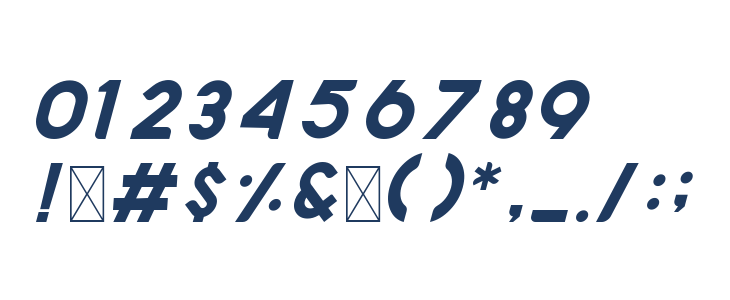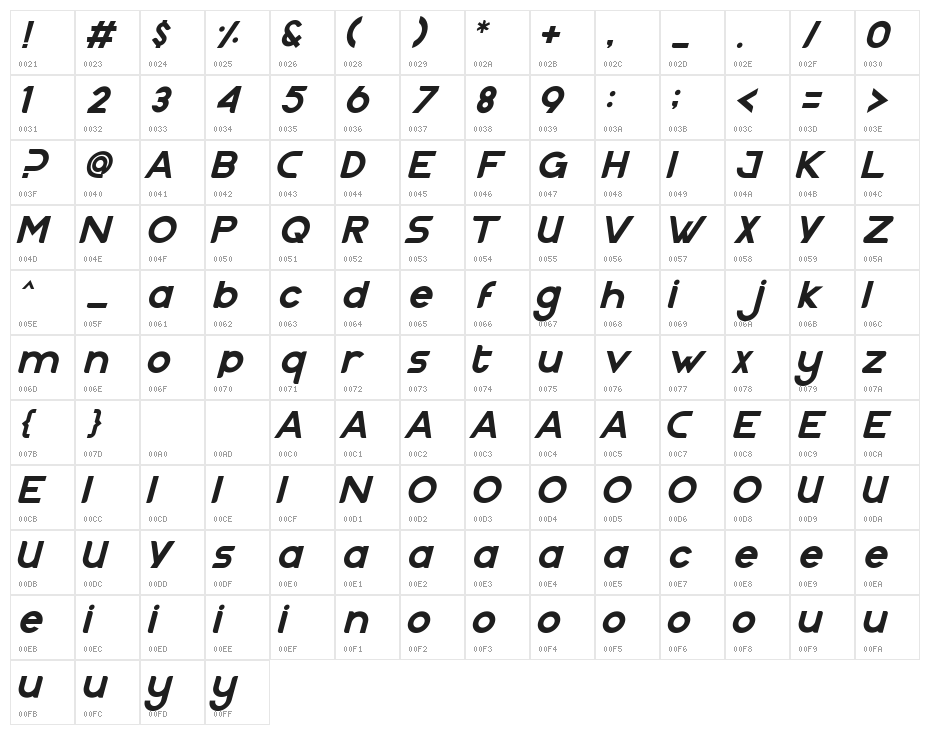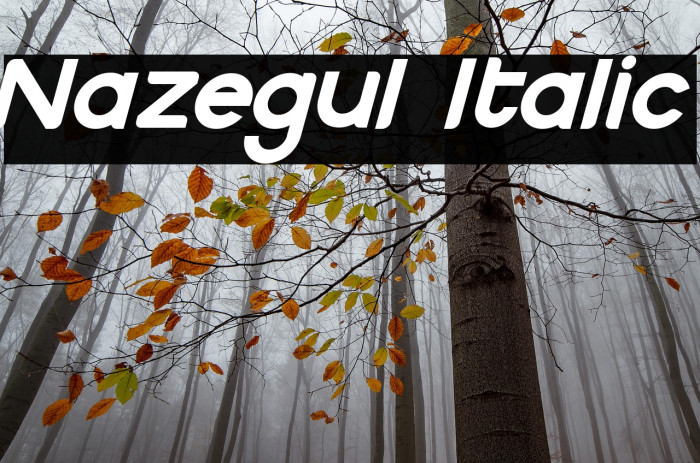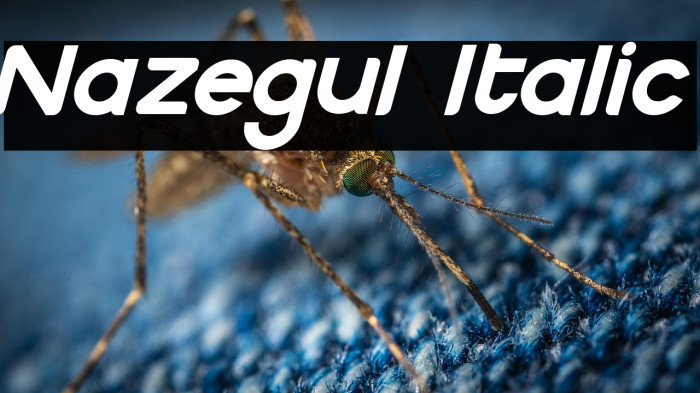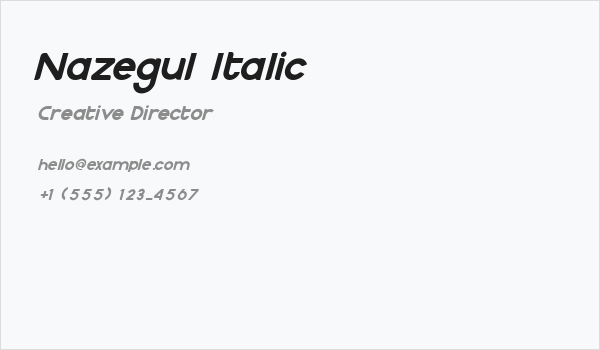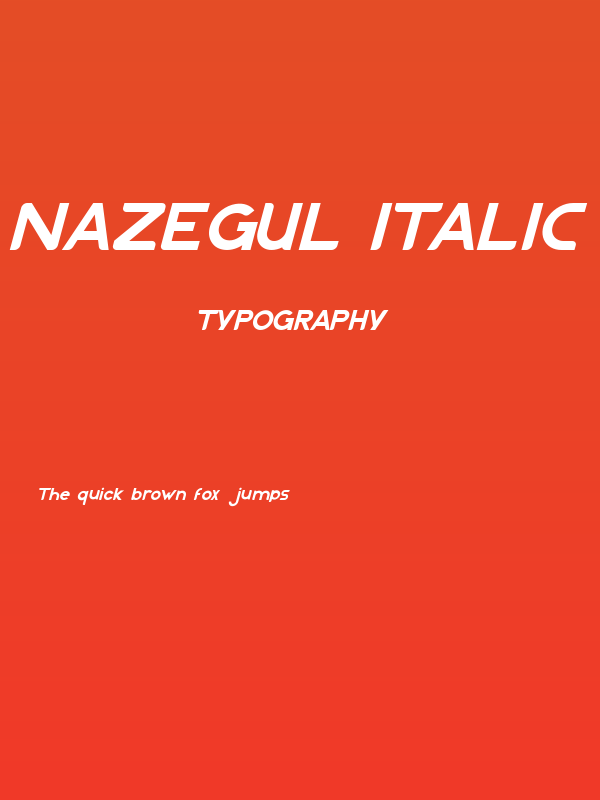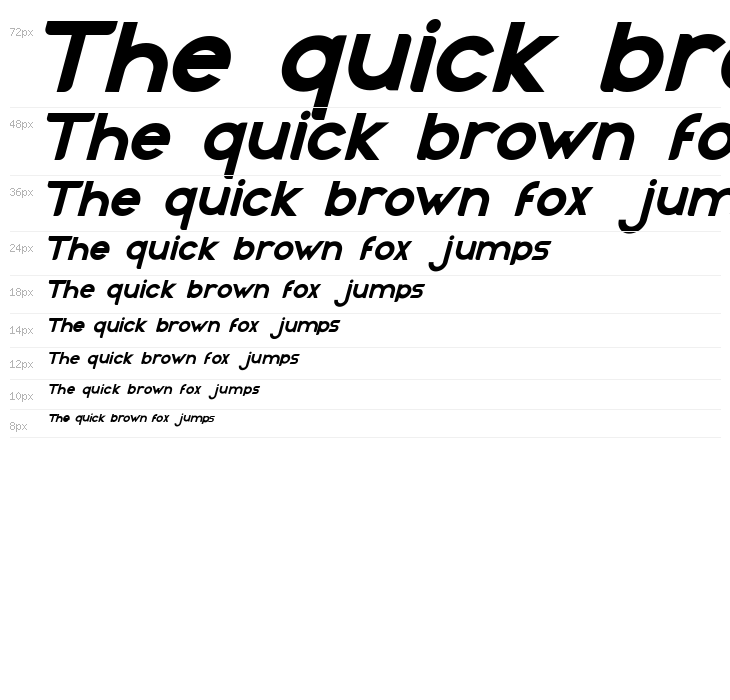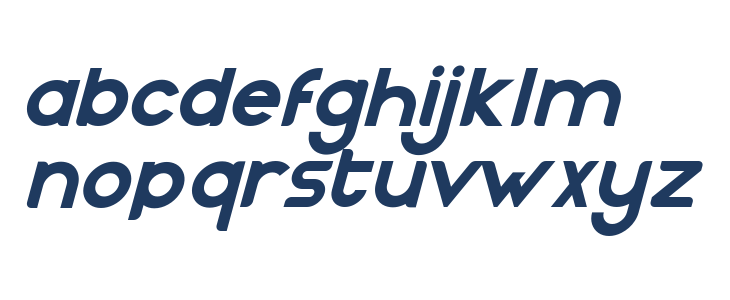
Nazegul Italic Font
Nazegul Italic Description
This font features a sleek, italicized style with a modern and dynamic appearance. The characters are slightly slanted, giving a sense of motion and energy. The strokes are bold and consistent, providing a strong visual impact. The uppercase letters are uniform in height, while the lowercase letters maintain a balanced and harmonious flow. The numerals are clear and distinct, matching the overall style of the alphabet. Special characters are well-integrated, maintaining the font's cohesive look. The design is versatile, suitable for various applications that require a contemporary and stylish touch.
| Use Case | Headlines, Logos, Digital Media |
| Proposed Projects | Ideal for branding, advertising, digital media, and modern editorial design. |